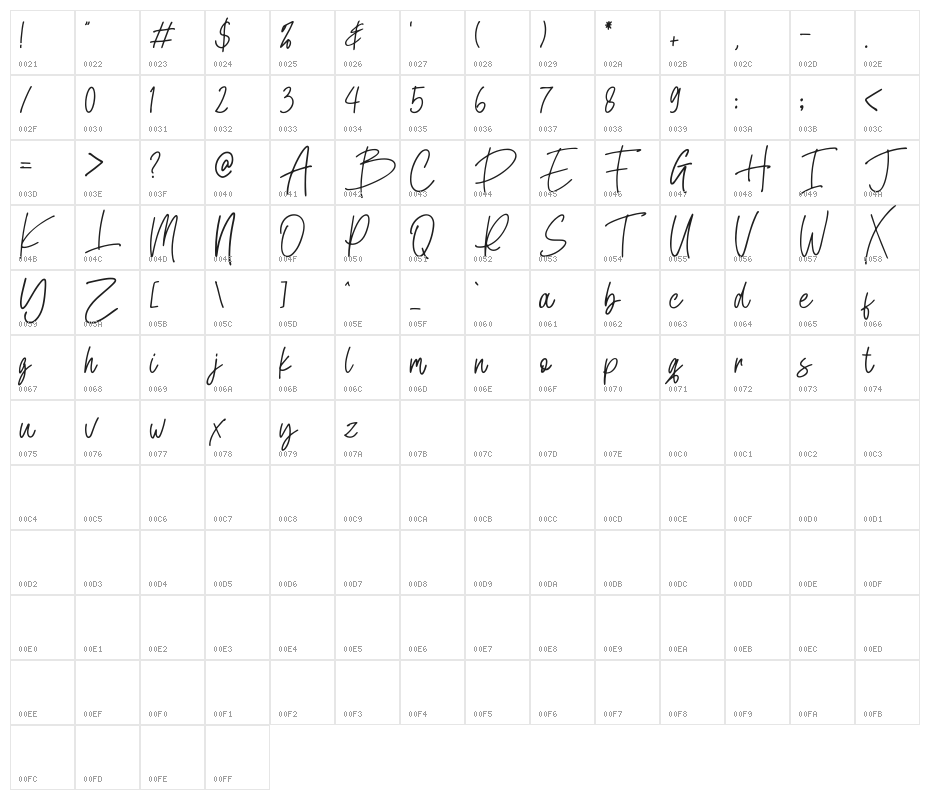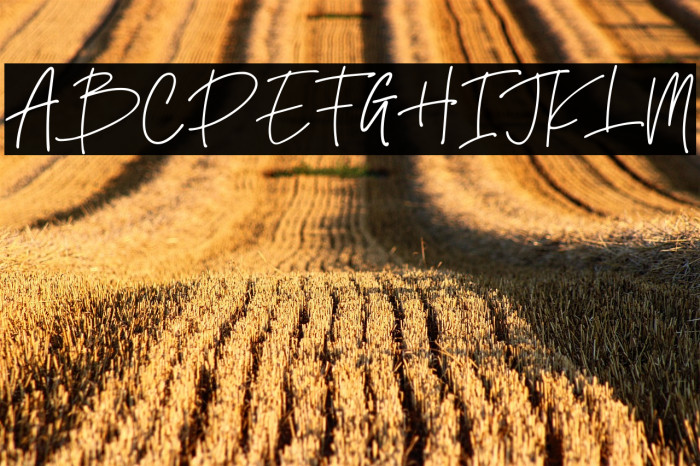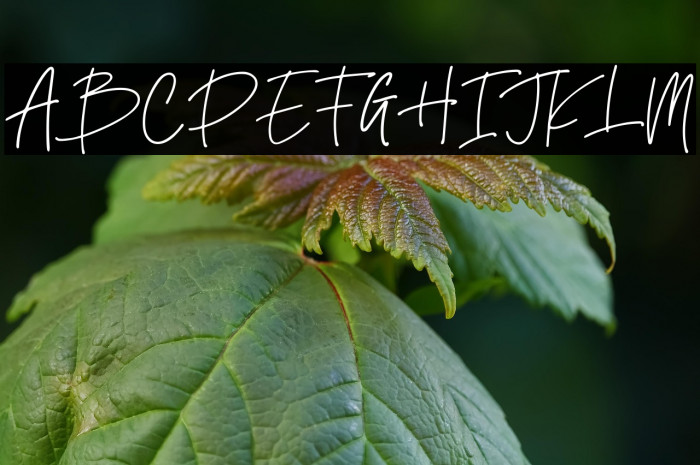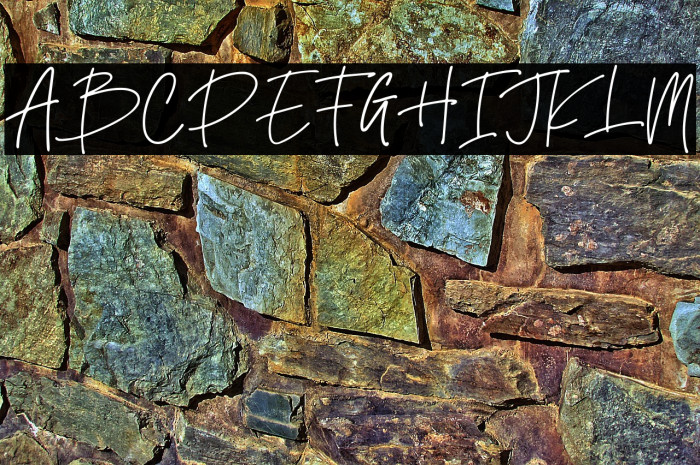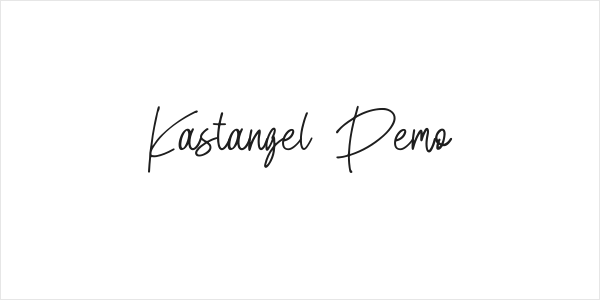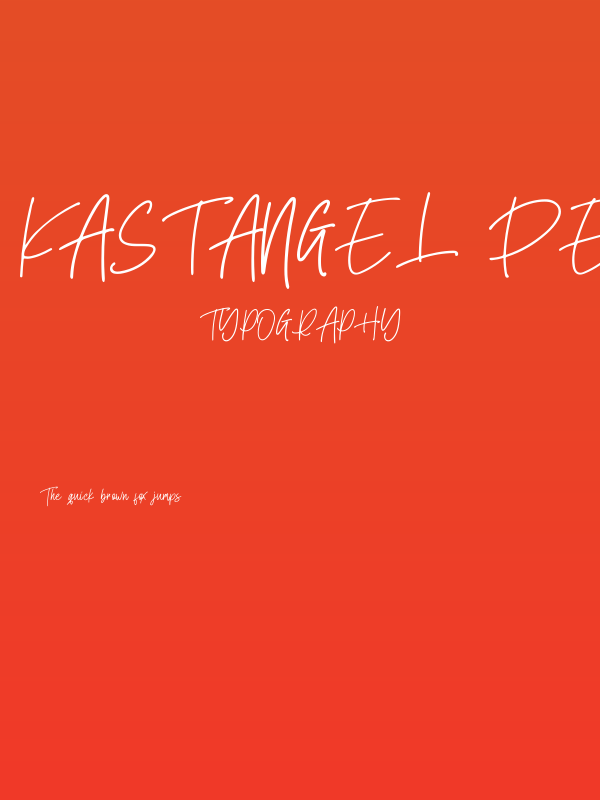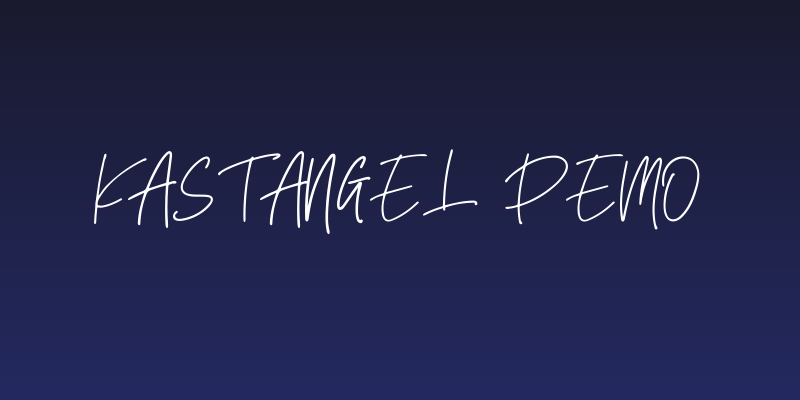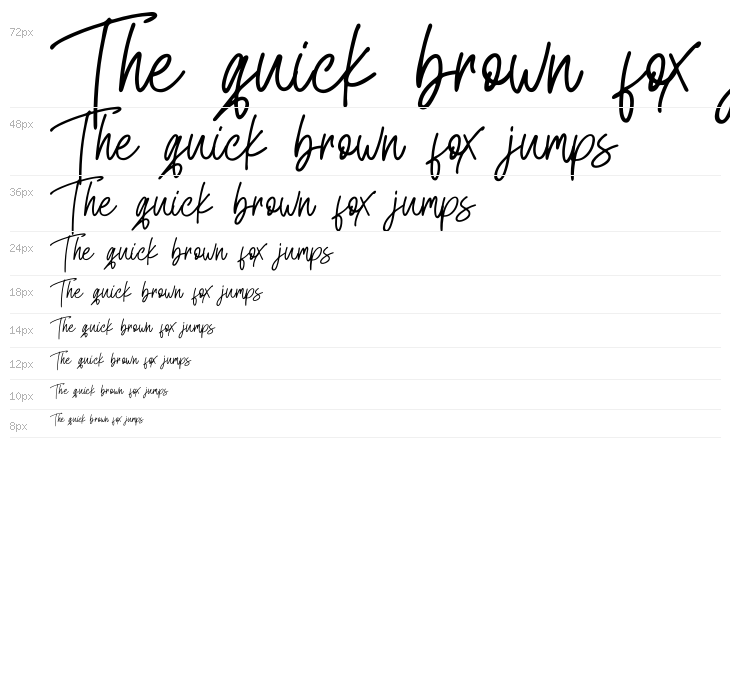
Kastangel Demo Font
Kastangel Demo Description
This font features a lively and dynamic handwritten style, characterized by its fluid and natural strokes. The uppercase letters are tall and slender, with a slightly slanted orientation, giving them a casual yet elegant appearance. The lowercase letters maintain a consistent flow, with smooth curves and a playful bounce that adds a touch of whimsy. The numerals are clear and distinct, matching the overall handwritten aesthetic. Special characters are well-integrated, maintaining the font's cohesive look. This font exudes a personal and approachable feel, making it ideal for projects that require a human touch.
| Proposed Projects | Ideal for greeting cards, invitations, personal branding, and social media graphics. |